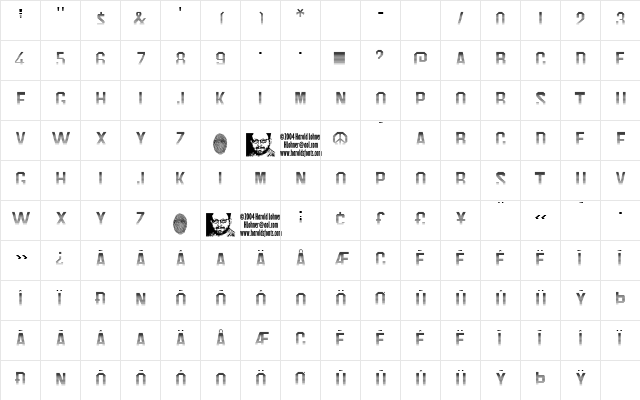
Jim DandyShading Regular
Design Context for Jim DandyShading Typeface
Jim DandyShading offers clean, dependable letterforms without strong stylistic allegiance, making it a practical choice for designers who need flexibility.